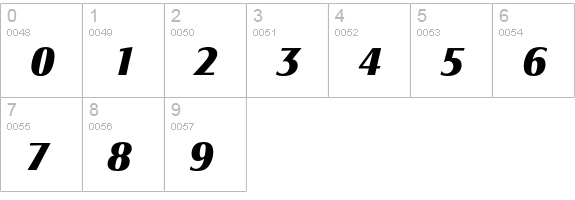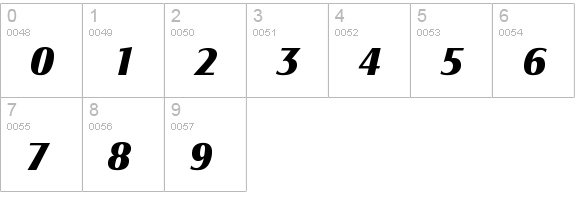
Signata Bold Italic is a strong, high-contrast, italic variant in the Signata typeface family \xE2\x80\x94 well suited to headlines, attention-grabbing titles, and strong calls-to-action.
Signata Bold Italic is a stunning and versatile font that effortlessly merges boldness with elegance. Its sleek and dynamic curves create a sense of energy and sophistication, making it the perfect choice for any design project that demands attention. With its distinctive italic style, Signata Bold Italic adds a touch of flair and creativity to any text. It exudes confidence and charisma, making it ideal for headings, titles, and branding materials that need to leave a lasting impression. One of the best features of Signata Bold Italic is that it is available for free. That's right, you can download this exceptional font at no cost! Simply head over to FontsMarket.com and start exploring the vast possibilities that Signata Bold Italic has to offer. Whether you are designing a website, creating eye-catching advertisements, or crafting captivating social media posts, Signata Bold Italic will elevate your designs to new heights. Its versatility and unique style make it suitable for a wide range of projects, from fashion and lifestyle to technology and business. The clean and crisp lines of Signata Bold Italic ensure readability and legibility, even at smaller sizes. This font is designed to make a statement, while still maintaining its functionality in various contexts. Its boldness grabs attention, while its italic twist adds a touch of sophistication. With Signata Bold Italic, you have the freedom to express your creativity and bring your design visions to life. So why wait? Download Signata Bold Italic for free at FontsMarket.com and unlock the potential of this extraordinary font. Let your imagination run wild and create designs that truly stand out from the crowd.